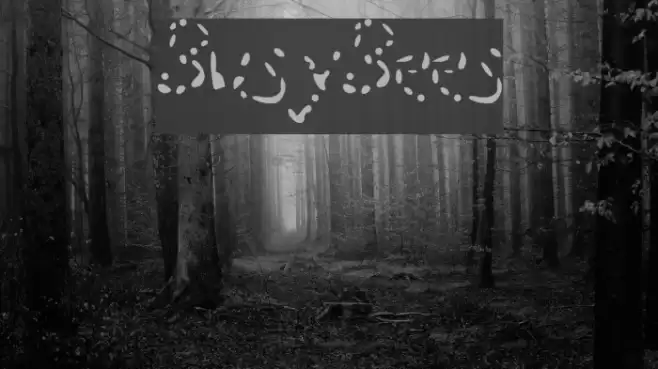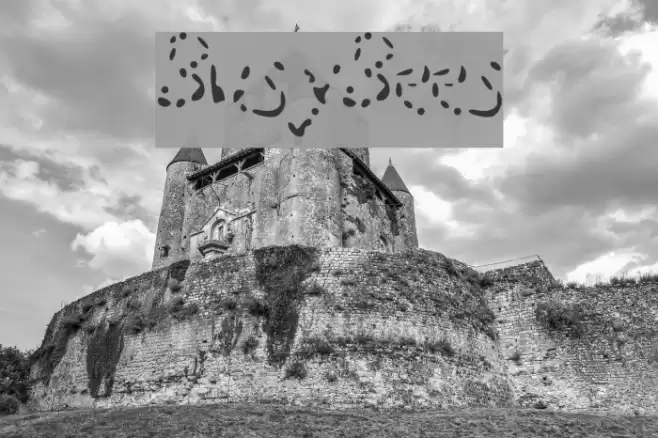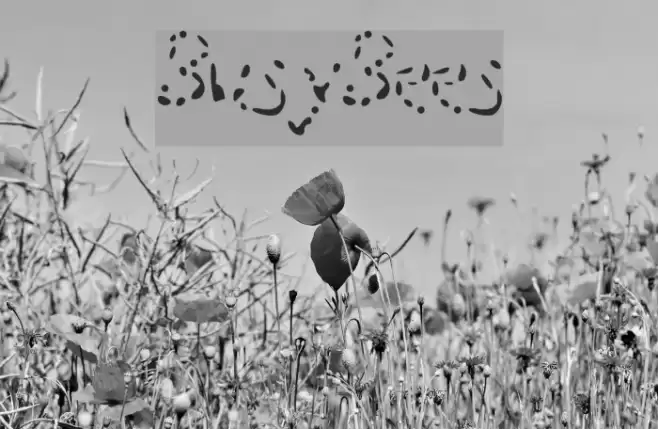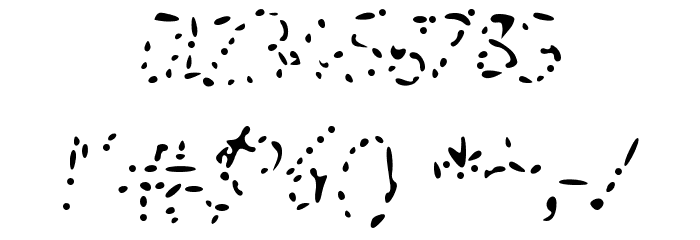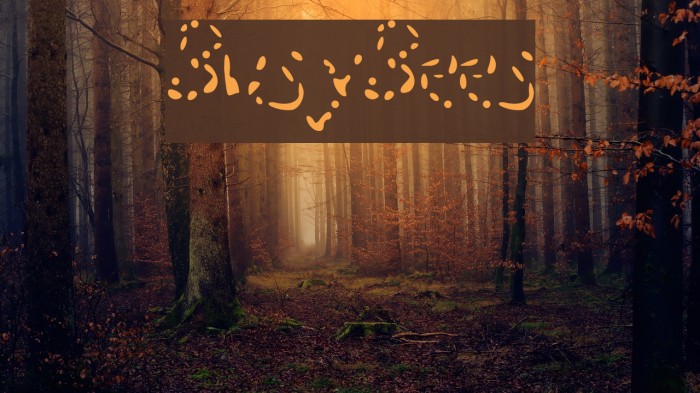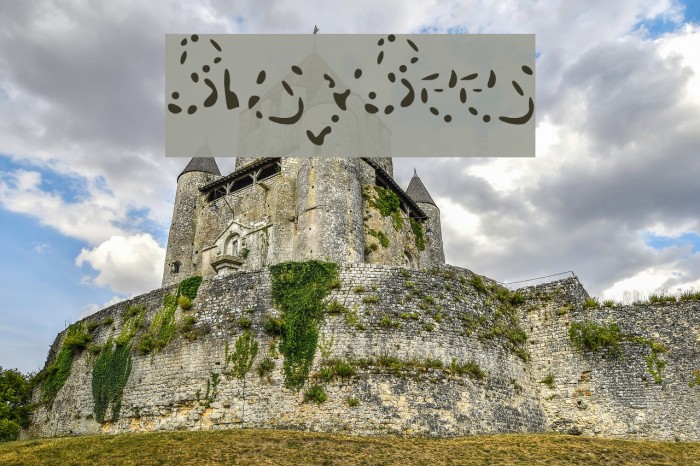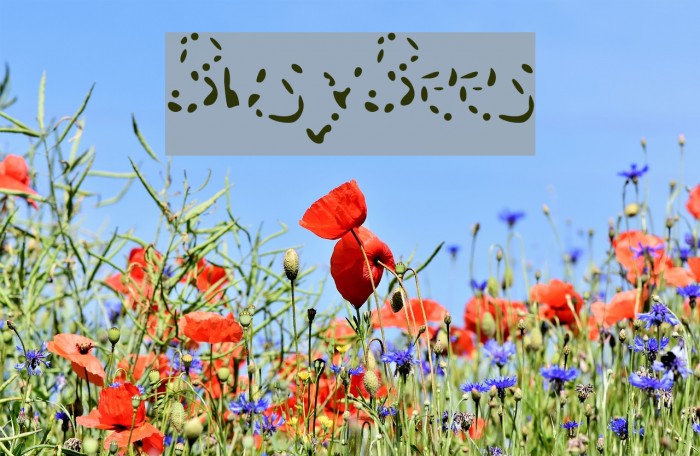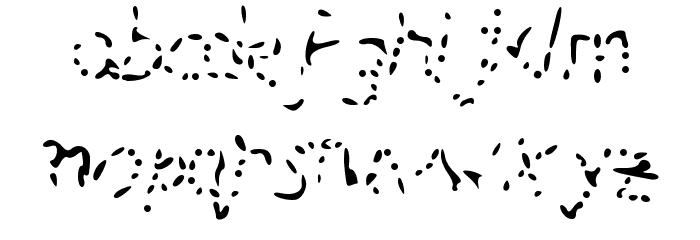
_Busy_Bees Font
_Busy_Bees Description
This playful and whimsical font features a unique design where each character is composed of small, irregular dots that mimic the appearance of a swarm of bees. The letters have a lively and dynamic feel, with varying sizes and orientations of the dots creating a sense of movement and energy. The overall effect is both charming and eye-catching, making it ideal for projects that require a fun and informal touch. The font maintains legibility despite its unconventional style, with each letterform clearly distinguishable. The combination of organic shapes and playful arrangement gives it a distinctive personality, perfect for creative and artistic applications.
A playful, dot-based font with a whimsical, bee-like appearance from Uncategorized fonts.
- Proposed Projects: Ideal for children's book covers, playful branding, greeting cards, and creative posters.
- Character Spacing: Wide
- Overall Style: Whimsical
- Use Case: Headlines, Logos, Creative projects